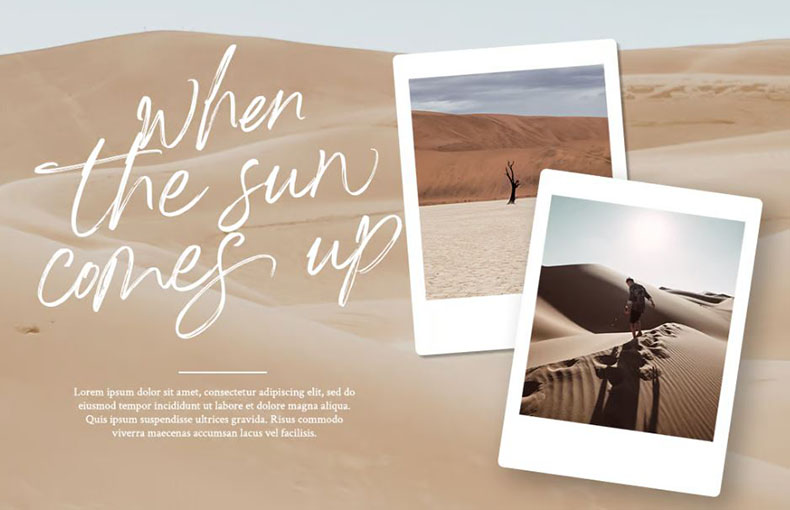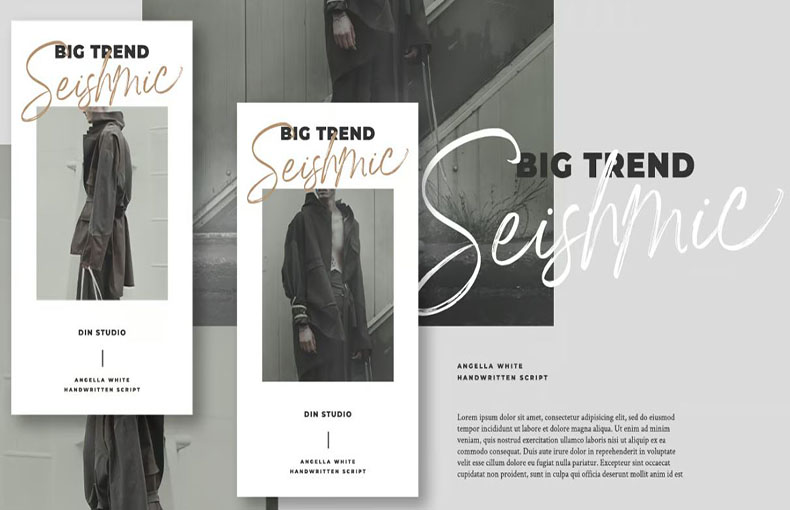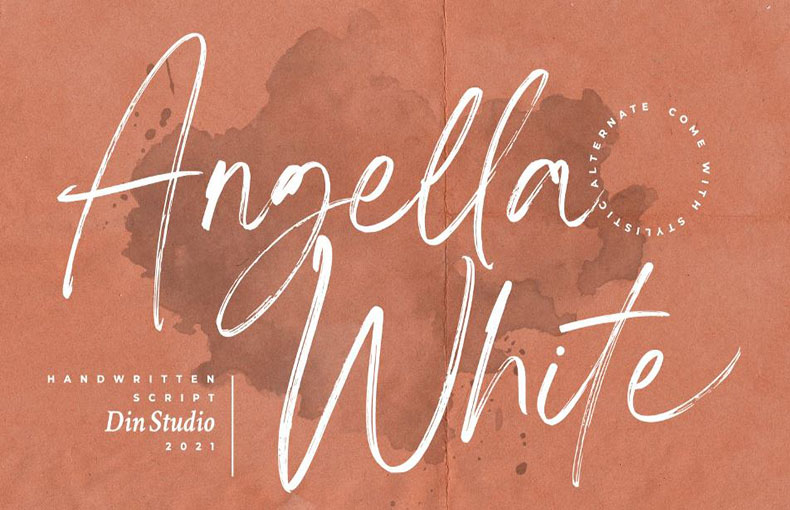
Angella White Font is a script handwritten typeface that feels classy, elegant, and modern. This font was created by a font designer named Din Studio.
This font paired with a beautiful handmade lettering brush style will have your guests sing and elevate your projects! Every stroke and curve has been designed to attract pleasure and elegance.
Its elegant and classy look perfectly suits it for creating standout headings, promoting your online sales, Instagram quotes, and even printed materials like business cards, t-shirts, or invitations.
Angella White typeface comes in a single style along with Open Type features. This style contains 442 glyphs and 42 ligatures. Moreover, it also supports 83 multilingual languages.
This typeface can be used to create excellent poster designs, wallpaper designs, text header designs, and other design projects. It is also appropriate for use in outstanding logo designs, book cover designs, brochure layouts, advertisements, Canva, Photoshop, and social media banner designs.
Angella White Font is a script handwritten typeface that feels classy, elegant, and modern. This font was created by a font designer named Din Studio.